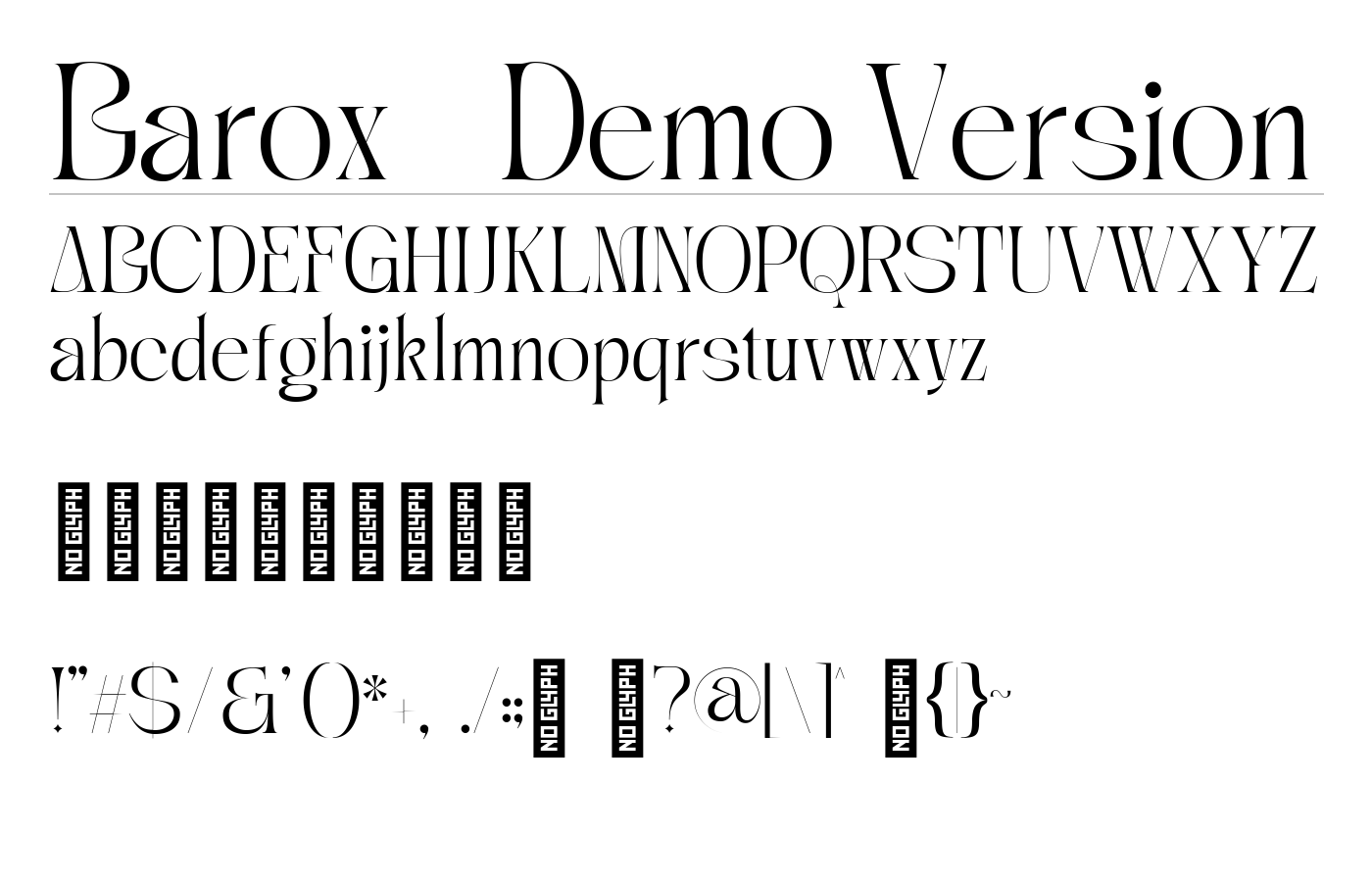
Barox is a sophisticated serif font featuring high contrast between thick and thin strokes, with delicate, bracketed serifs and a tall x-height that lends elegance and readability. Its refined letterforms, including unique shapes like the single-story ‘a’ and ornate tail on the ‘Q’, create a stylish, modern yet classic feel perfect for luxury branding, editorial headlines, and upscale design projects. This font works best where an elegant and distinctive look is needed to convey sophistication and high quality.
Barox - Demo Version Font
About Barox - Demo Version Font
| Font family | Barox - Demo Version Font |
| Designer | Sigit Dwipa Raharjo |